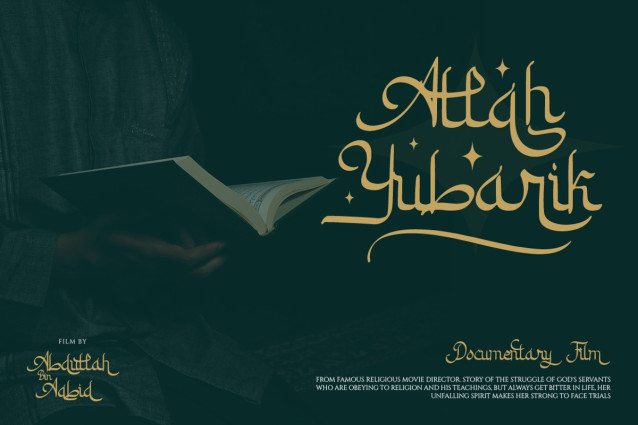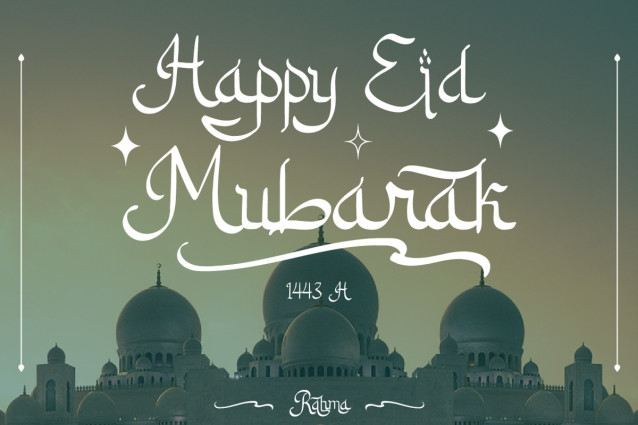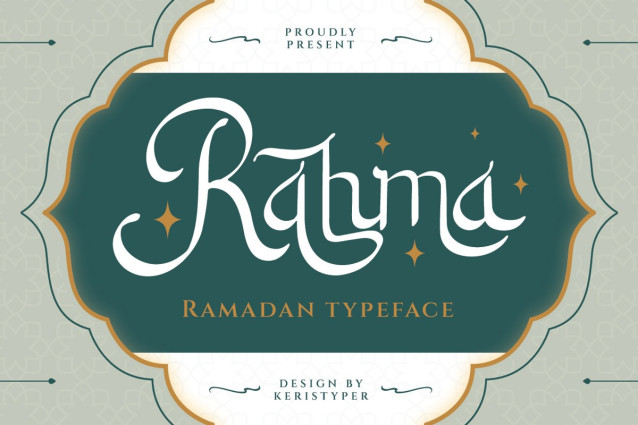
Rahma Font
Rahma Font display font in Arabic style. Designed with a digital flat-pen and gothic typography technique which gives the elegant looks of the letters. This font is good for logo design, Social media, Movie Titles, Books Titles, short text even long text letters, and good for your secondary text font with sans or serif.